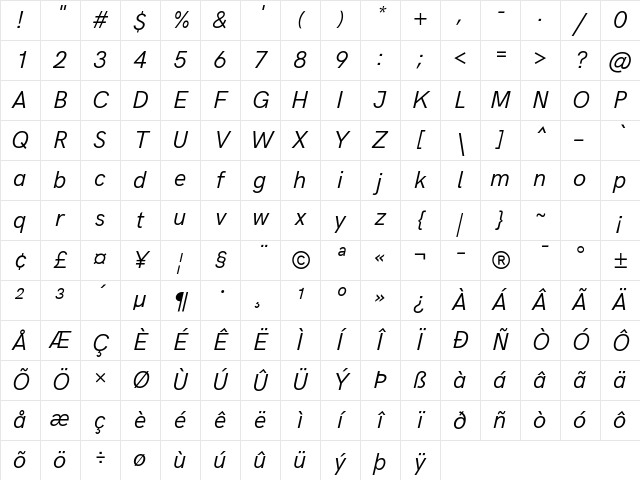
Complete Acari Sans Italic glyph index. Displaying only characters natively supported by Acari Sans Italic font.
Acari Sans is a composed and adaptable typeface that performs quietly and consistently across a wide range of design contexts. The slanted form adds forward momentum and visual energy.
Pro Tip: Use Acari Sans for emphasis, pull quotes, and subheadings where its slanted energy can add rhythm to the layout.